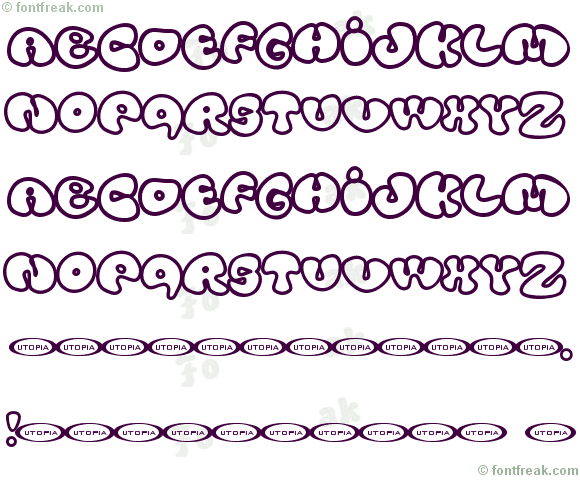
Tolo
Tolo is a distinctive display font created by Utopiafonts in 1998, known for its playful and whimsical style. This font features rounded, bubbly letterforms that exude a sense of friendliness and approachability. With its moderate stroke weight and minimal contrast, Tolo maintains legibility while adding a touch of character. The generous spacing between characters enhances readability, making it a perfect choice for various design applications.
The Tolo font shines in creative contexts where a lighthearted aesthetic is desired. It’s an excellent choice for children's book covers, playful branding projects, and eye-catching event posters. Additionally, Tolo can elevate restaurant menus, particularly for establishments that wish to convey a fun and casual dining experience. This font can also serve as an engaging typeface for website headings and social media graphics, appealing to a diverse audience.
Targeted towards graphic designers, small business owners, and content creators, Tolo offers a unique solution for those looking to inject personality into their projects. Its versatility allows for use in both digital and print media, making it a valuable asset for any designer’s toolkit. Whether you’re crafting an advertisement or designing merchandise, Tolo’s charm can help your creations stand out.
What truly sets the Tolo font apart is its ability to evoke a sense of joy and creativity. It invites viewers to engage with the text and can easily transform mundane content into something memorable. With the Tolo font free download available, designers and creators can effortlessly incorporate this delightful typeface into their work, ensuring that their projects not only communicate effectively but also resonate with their audience. Embrace Tolo for a refreshing and vibrant touch in your design endeavors.